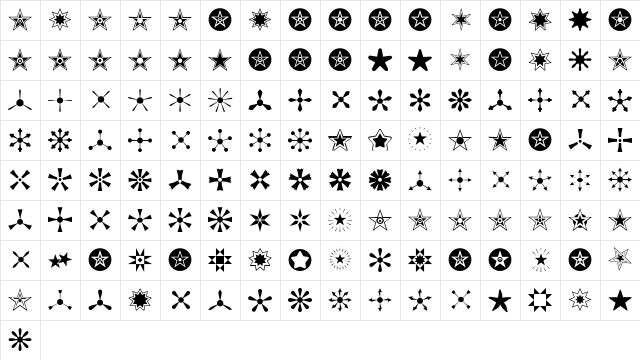
Altemus Regular
Altemus Family
Altemus Regular
Complete Altemus Regular glyph index. Displaying only characters natively supported by Altemus Regular font.
Design Context for Altemus
Altemus is a composed and adaptable typeface that performs quietly and consistently across a wide range of design contexts.